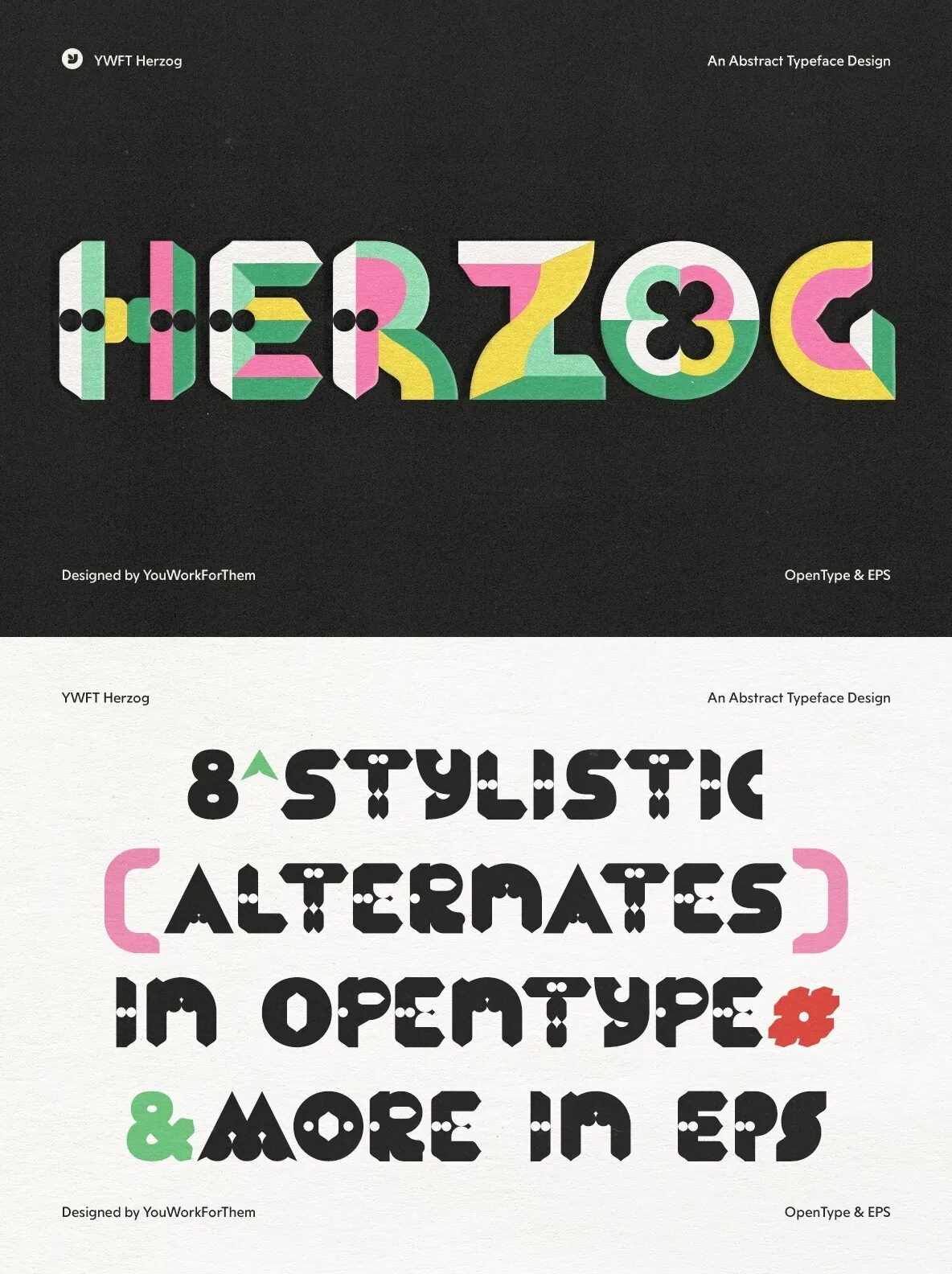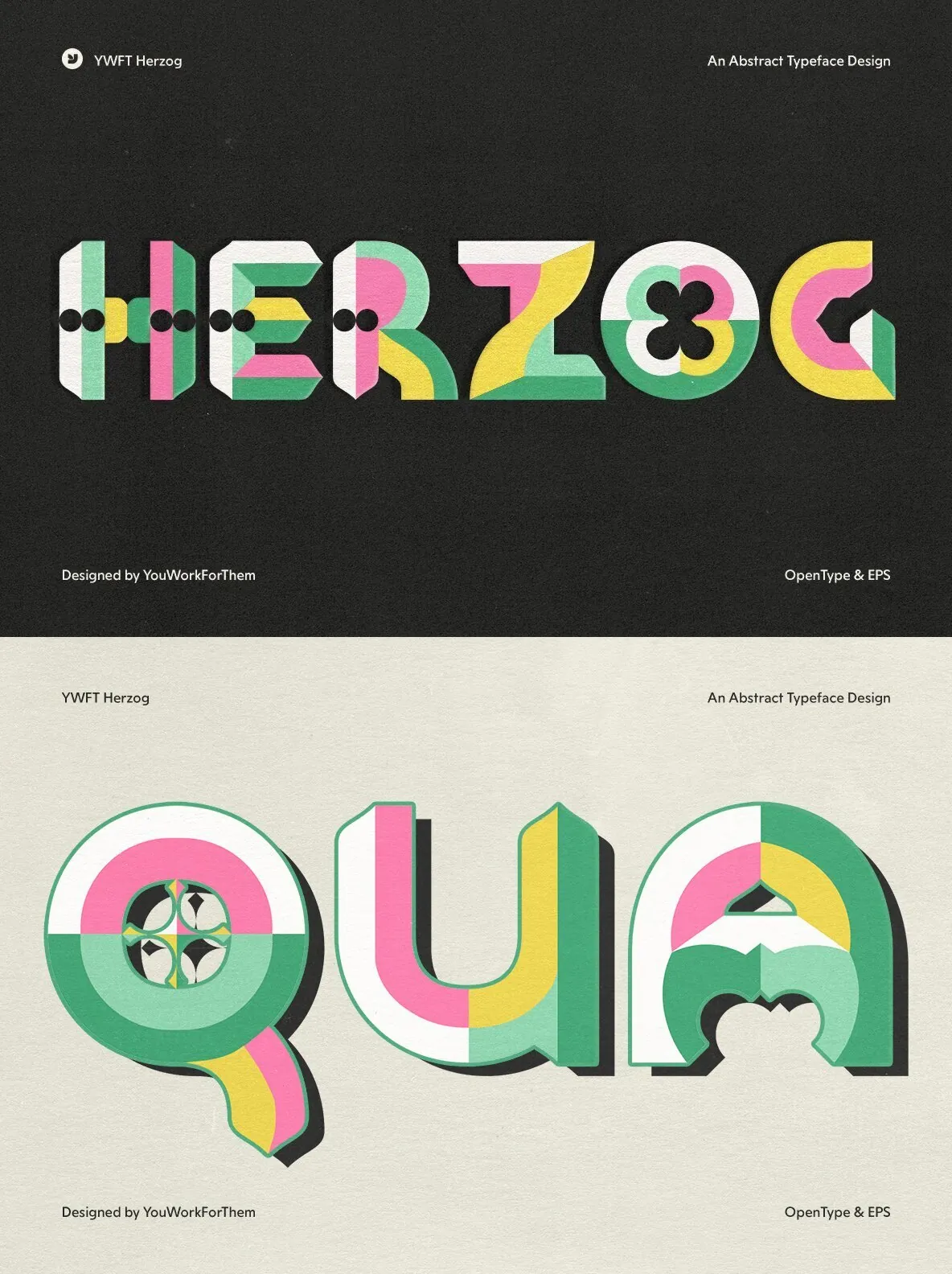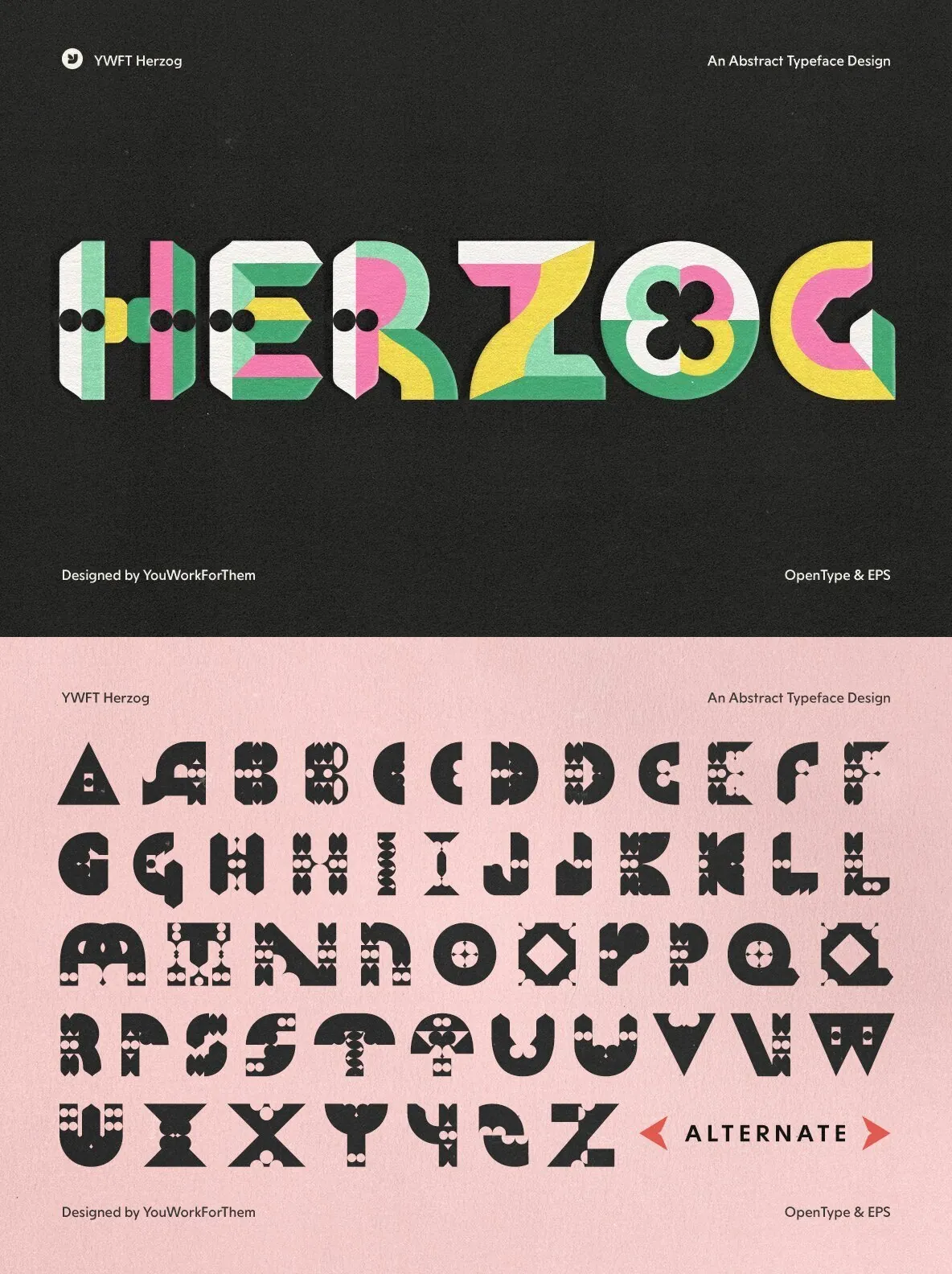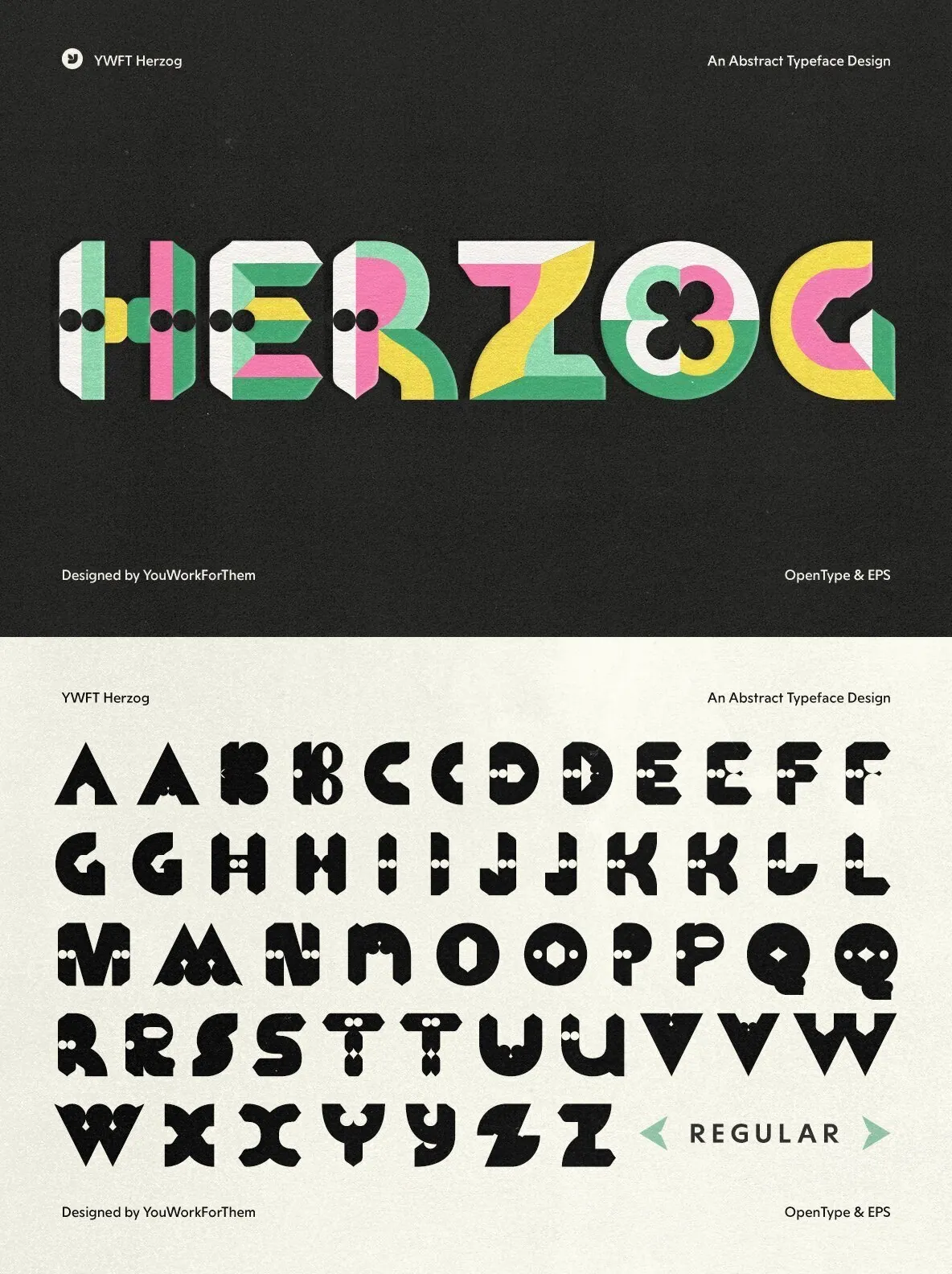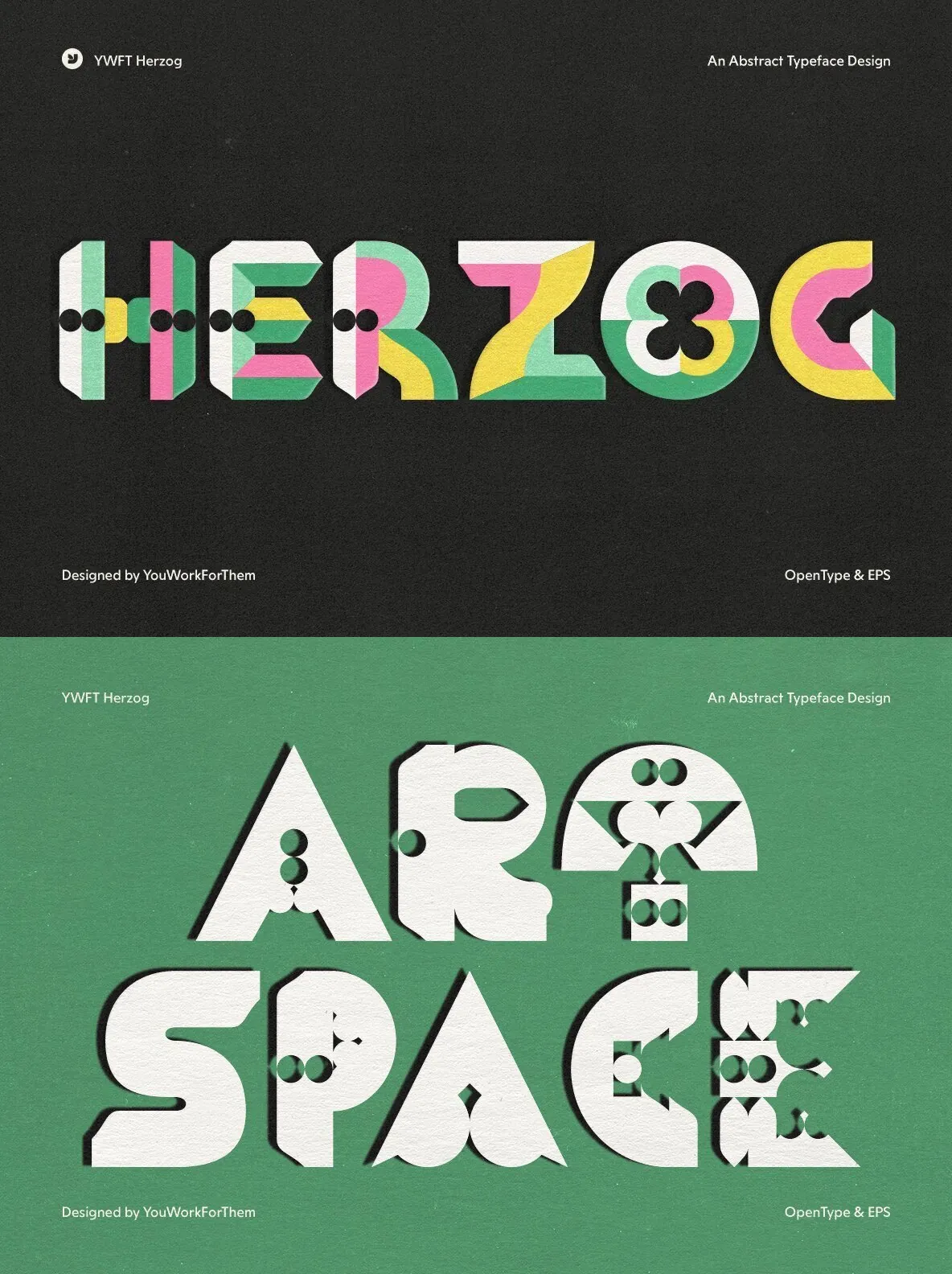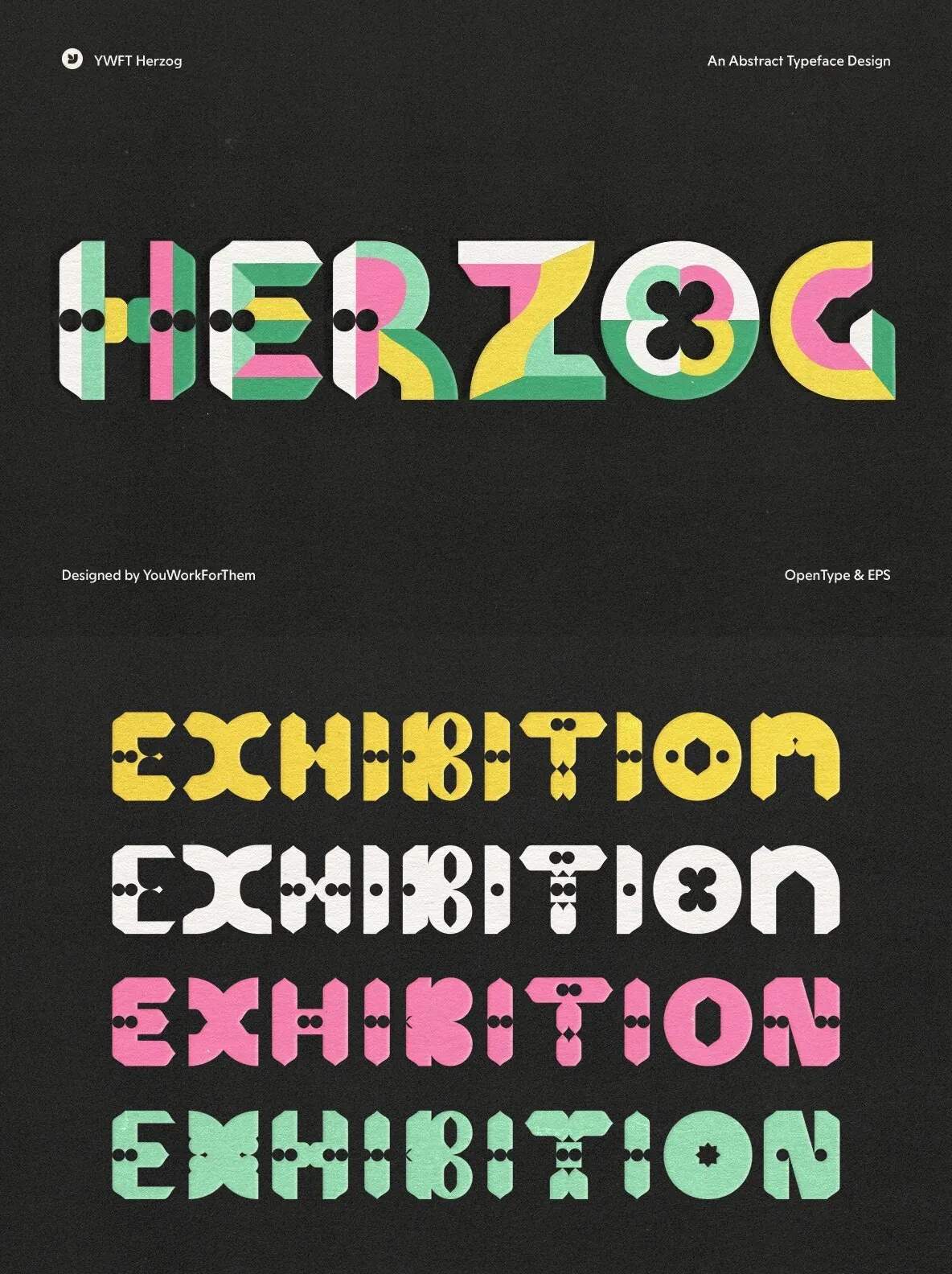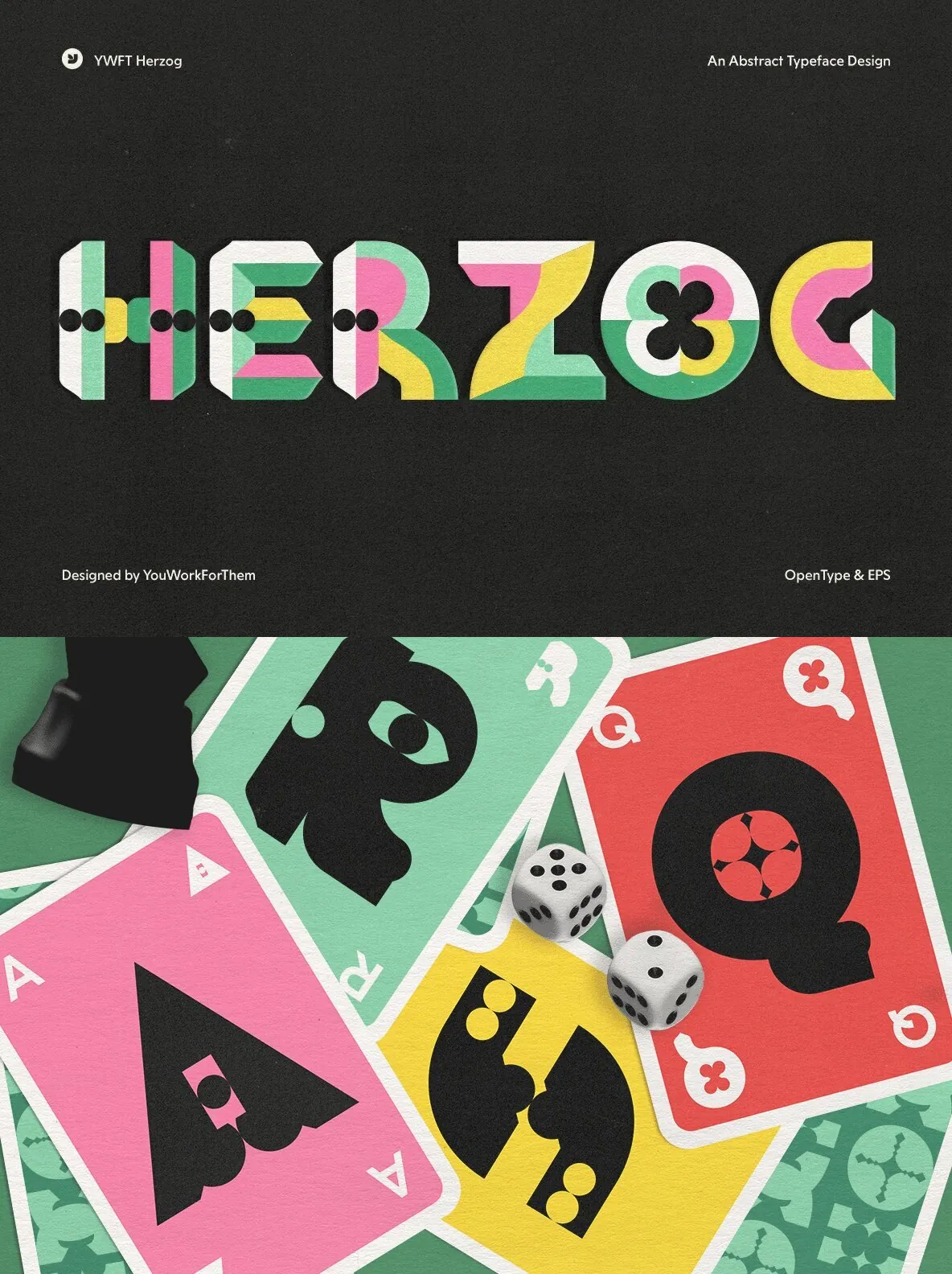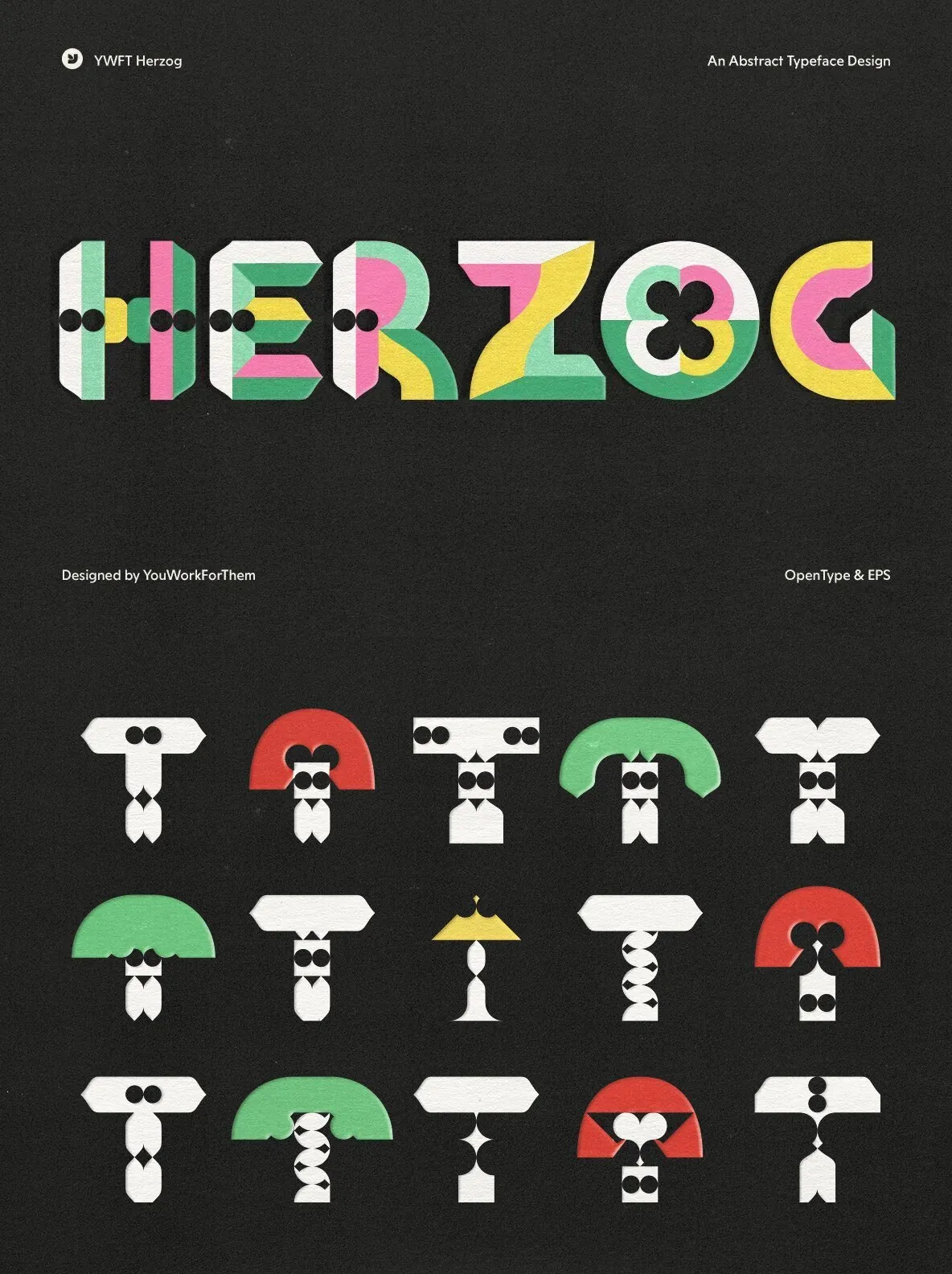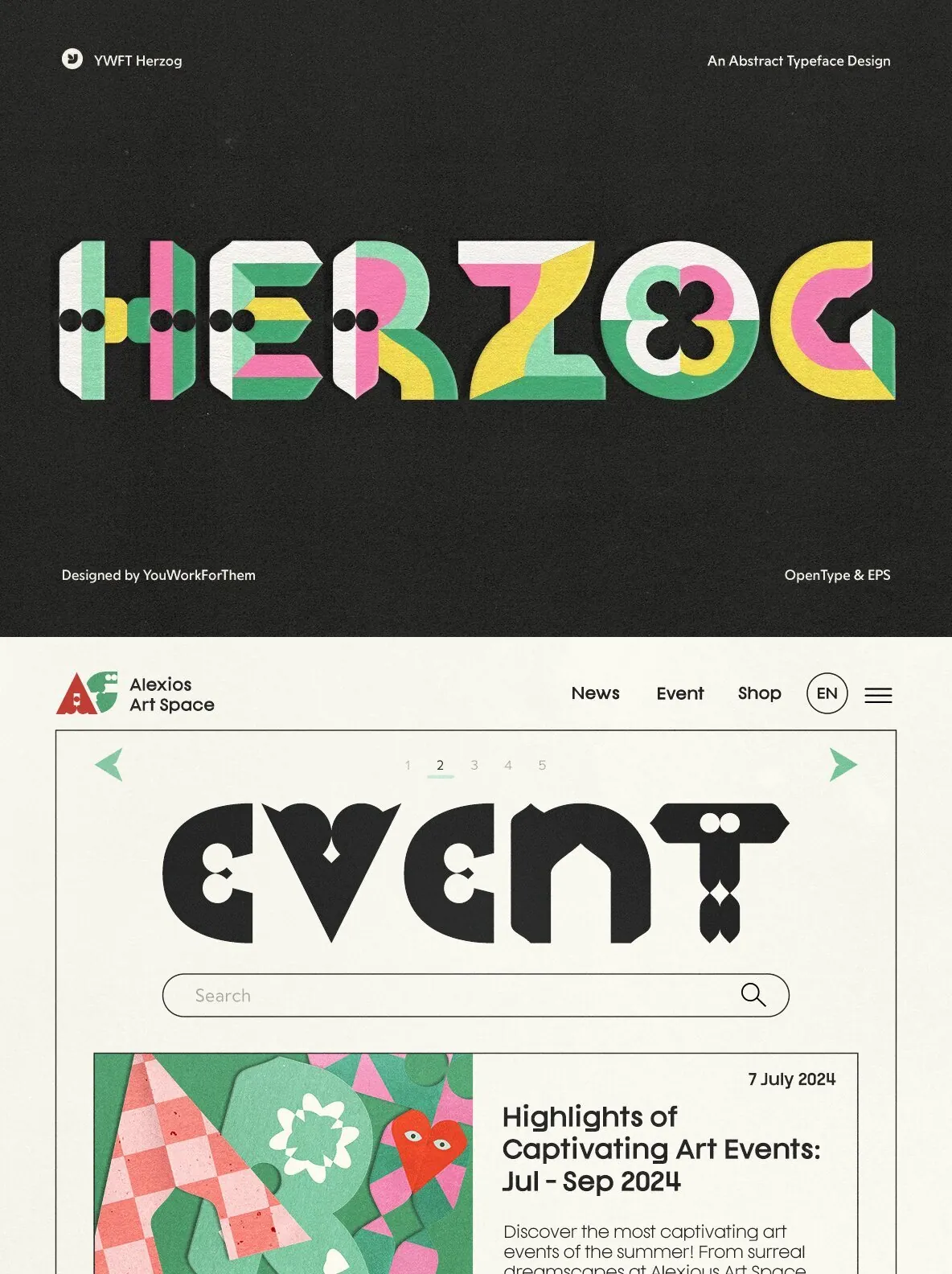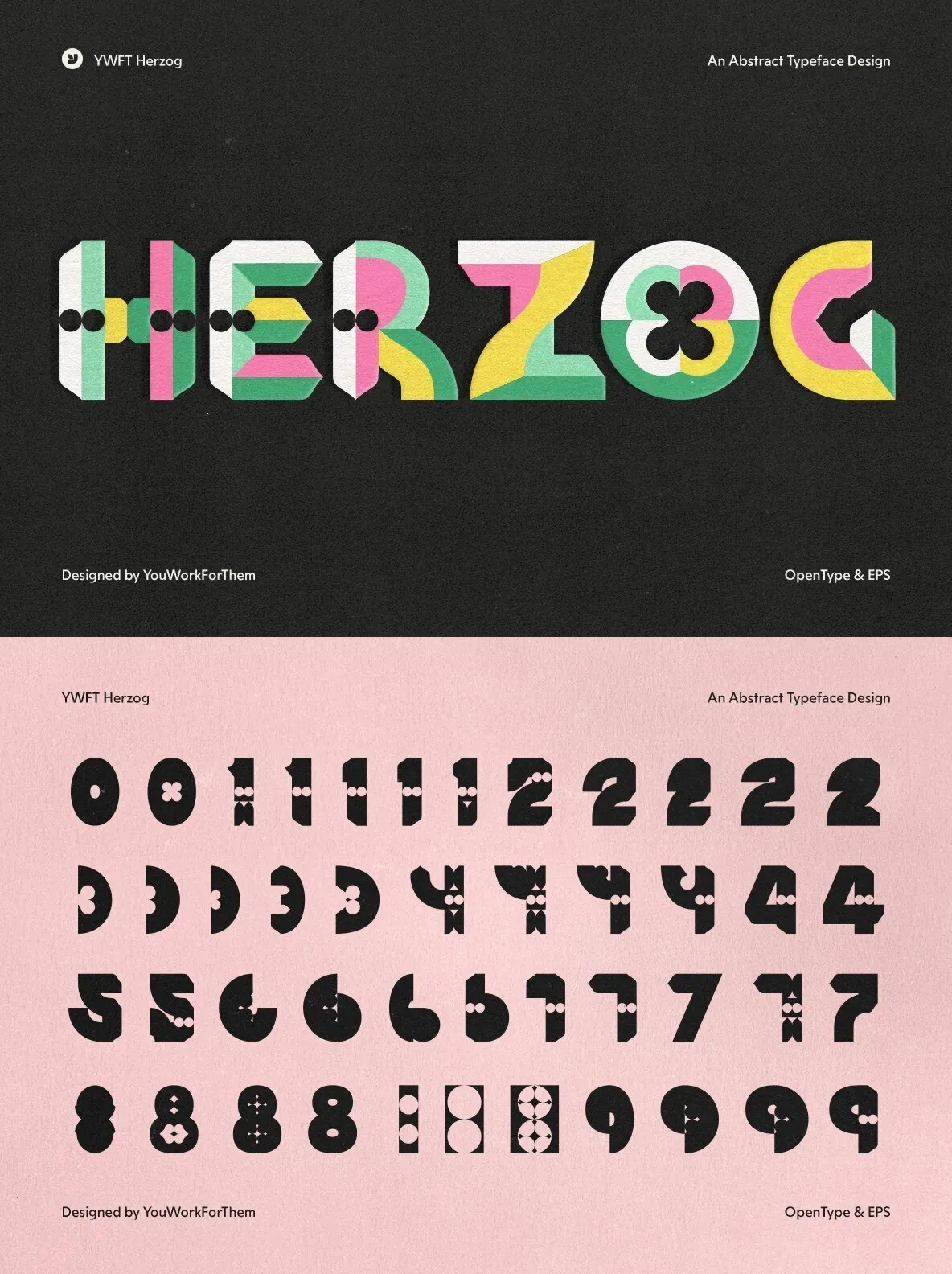
Originally drawn in 2008 by YouWorkForThem, we revisited the Herzog drawings in 2011 and developed them into a fully functional opentype font release. YWFT Herzog comes with two style options (regular and alternate), with each style containing opentype stylistic alternates for upper case and lower case characters. When you buy the complete family of YWFT Herzog, we include a free copy of the original handset design (eps file), which contains several hundred letter options for your enjoyment. Designed by YouWorkForThem.